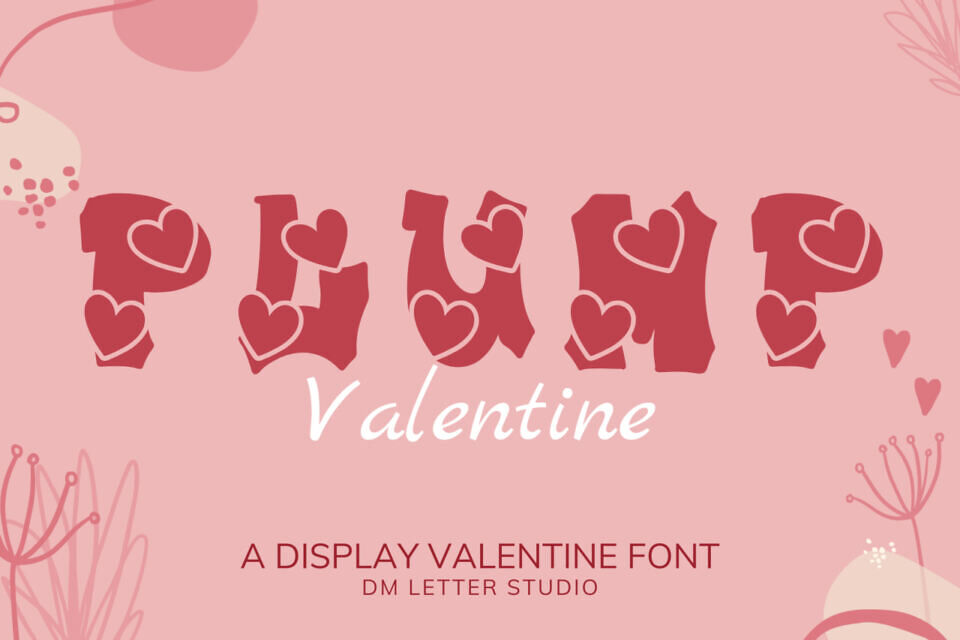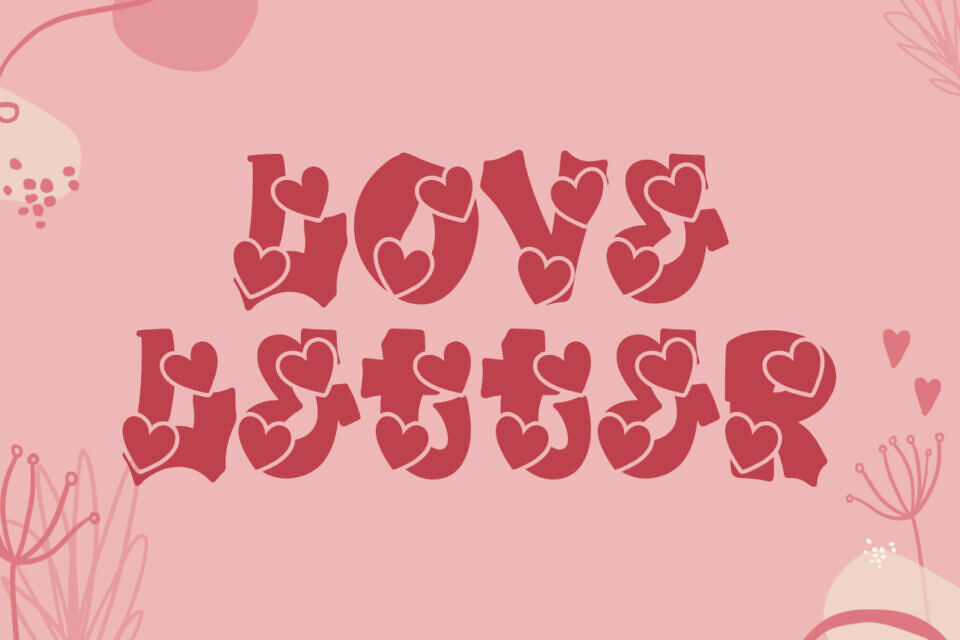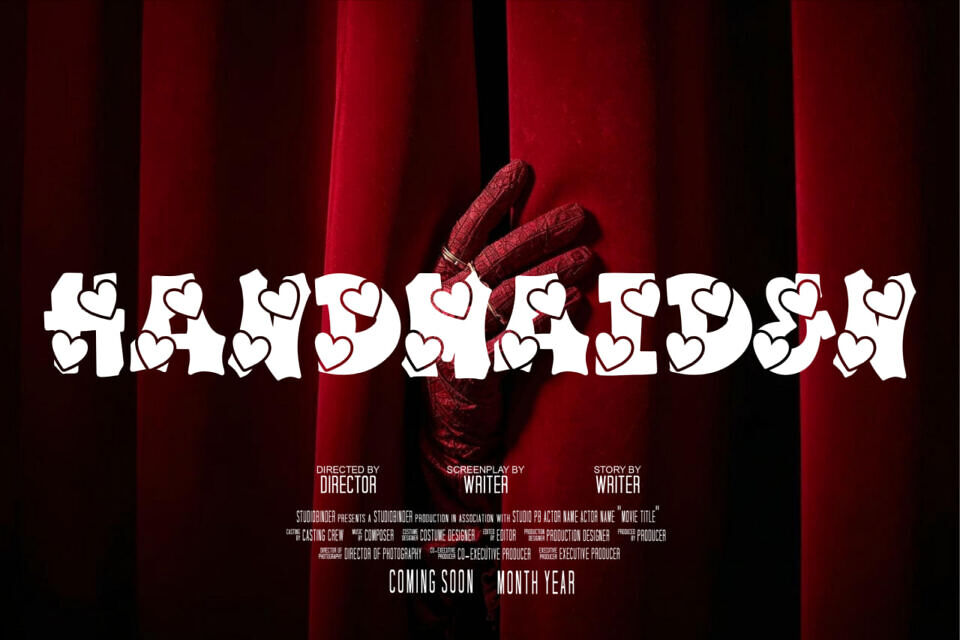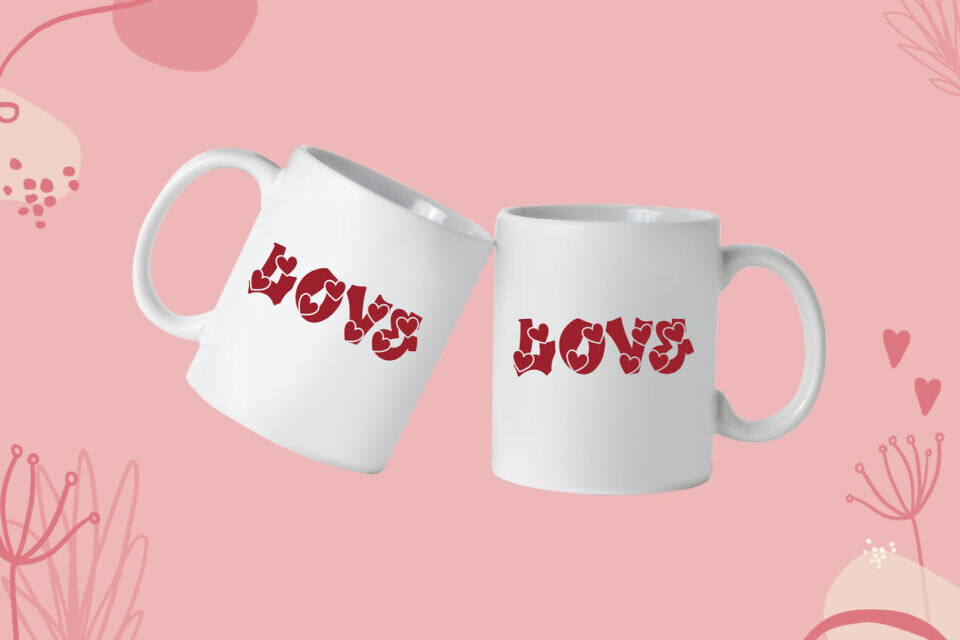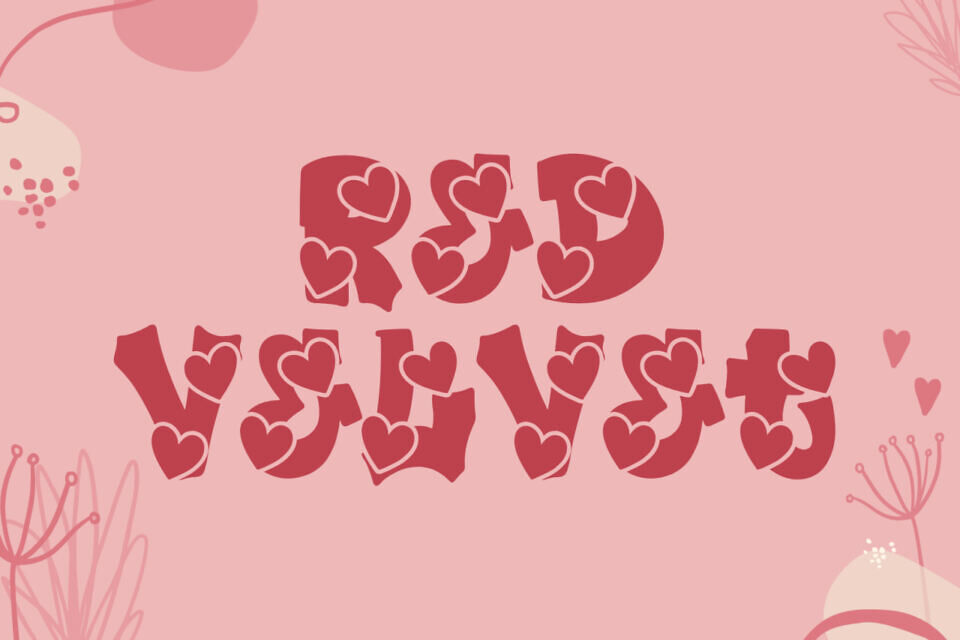
Plump Valentine Font brings cute, bubbly charm to love notes, tees, stickers, and gifts. Rounded letters feel soft and joyful, while wide counters keep every word clear on print and screen.
Use it for Valentine cards, proposal boxes, candy labels, classroom parties, and romantic social posts. Because spacing is even and curves stay smooth, your designs look sweet at any size.